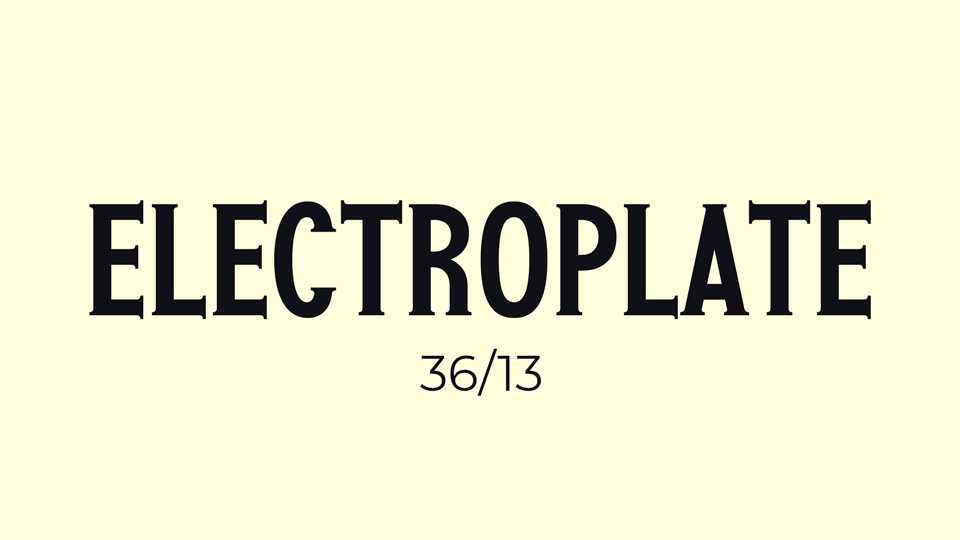
Dwonalod Electroplate typeface, a serif font family in six weights, including variable, an attempt at a Copperplate Gothic spinoff, blended with a bit of sci-fi and industrial style.
Designer: Justin Penner